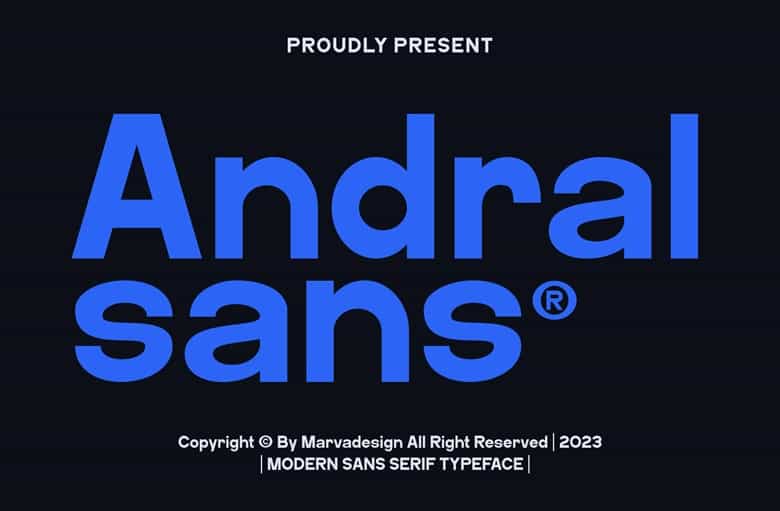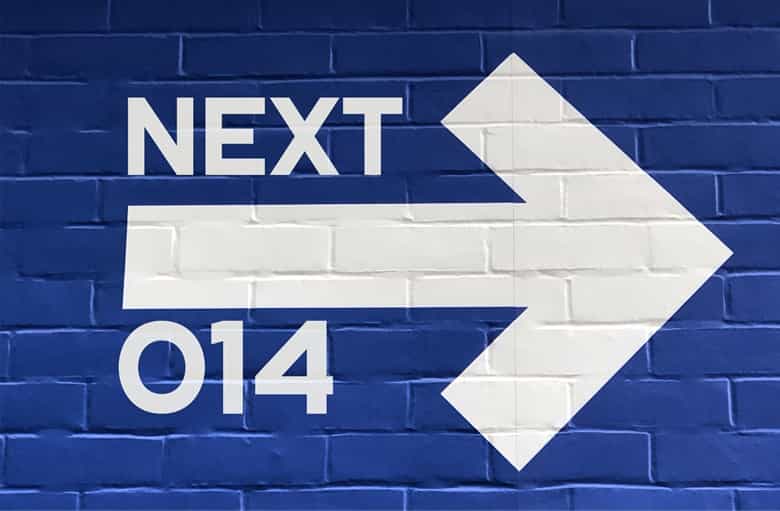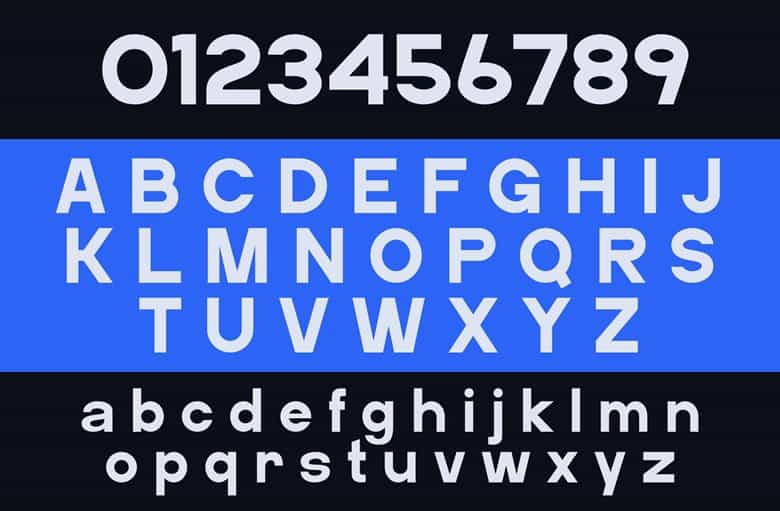
Andral is a modern sans serif typeface brings a fresh, contemporary feel to your designs. It has clean lines and sleek look to go with any project. Andral puts some modern and professional edge in your web site, logo or poster, no matter you are creating.